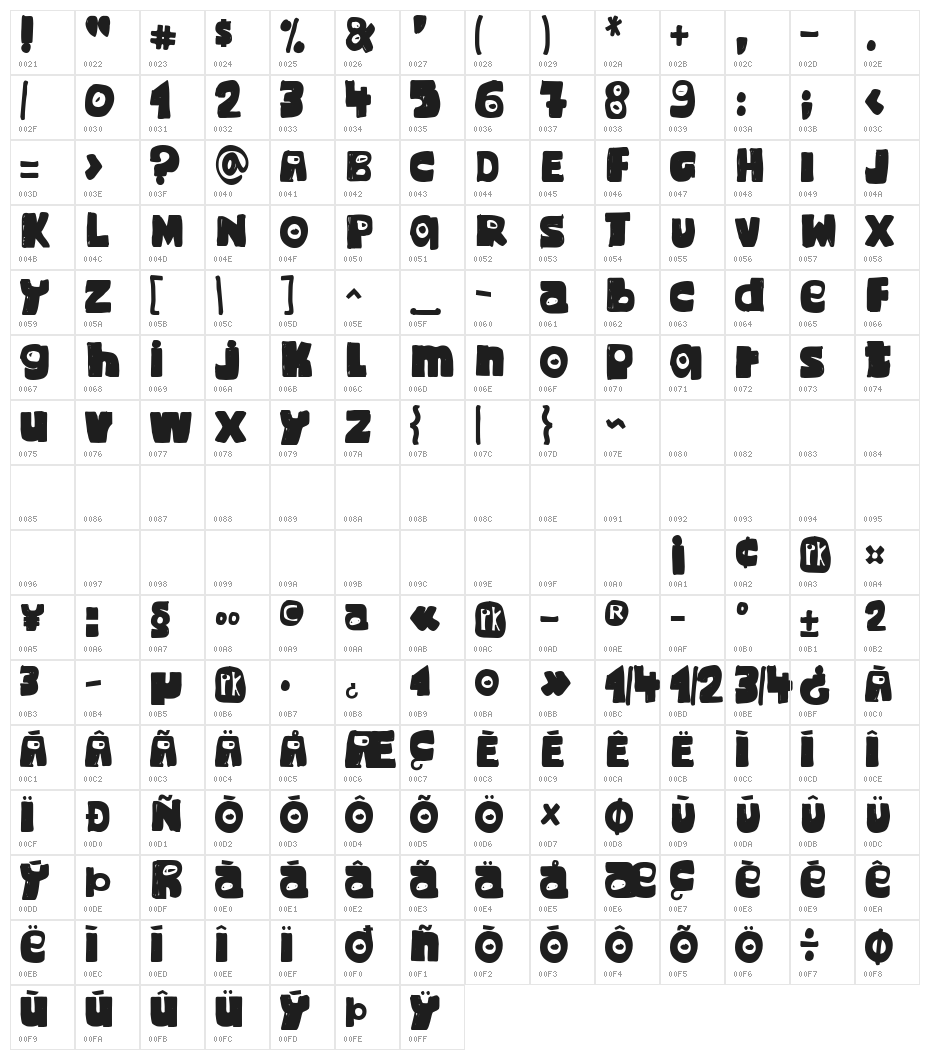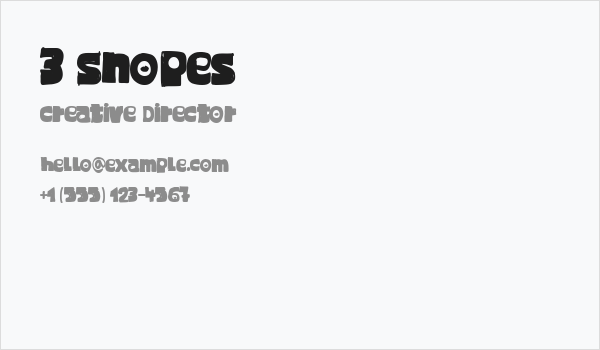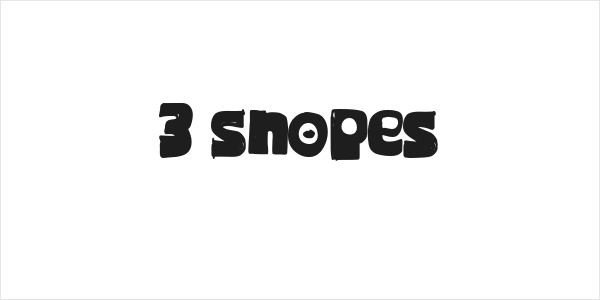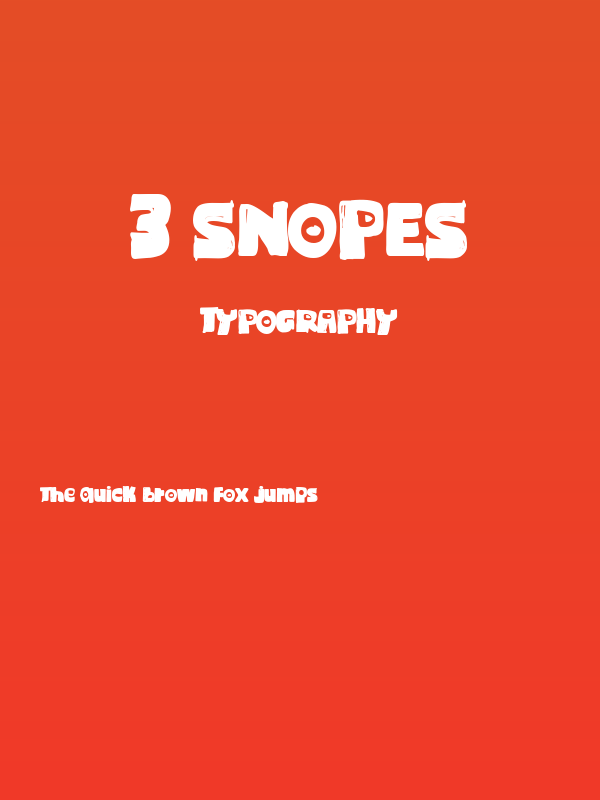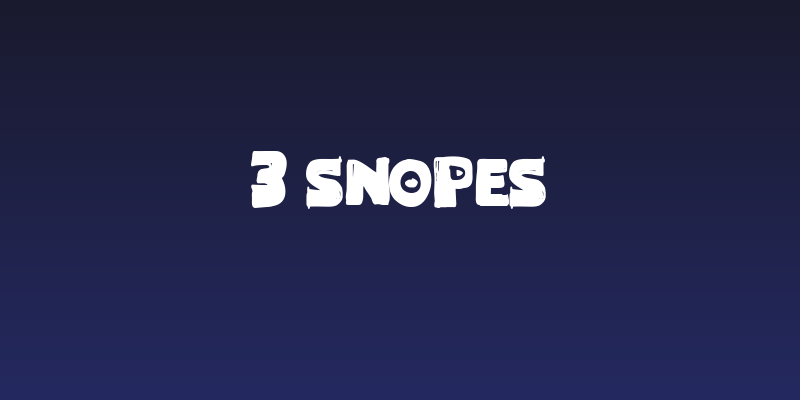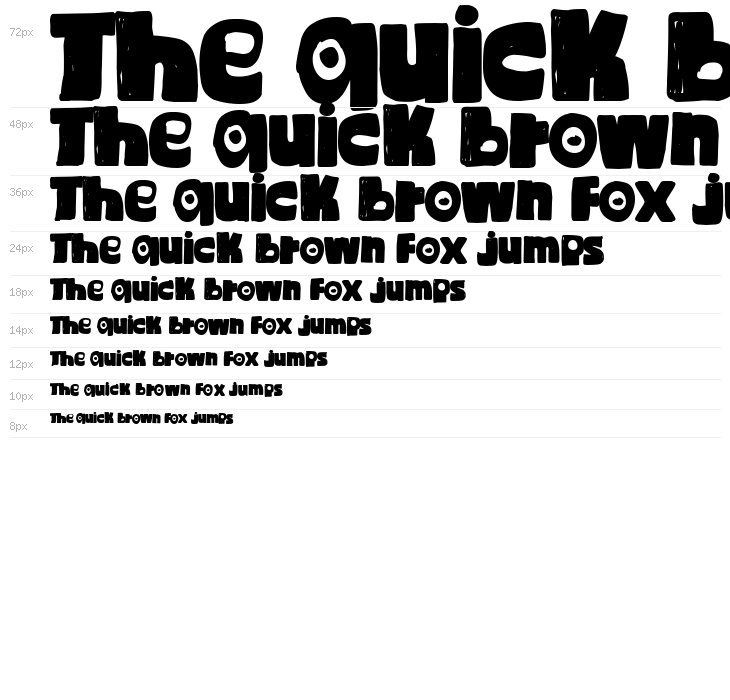
3 Snopes Font
3 Snopes Description
This font is a bold and playful typeface with a unique, quirky design. The characters are thick and rounded, with an uneven, hand-drawn appearance that adds a whimsical touch. Each letter features slight variations and imperfections, giving it a lively and dynamic feel. The font includes both uppercase and lowercase letters, numbers, and a variety of special characters. Its boldness and distinctive style make it stand out, making it suitable for projects that require a fun and informal look.
| Overall Style | Playful and Whimsical |
| Use Case | Headlines, Posters, Creative Projects |
| Proposed Projects | Ideal for children's books, playful branding, posters, and creative projects that require a fun and informal touch. |